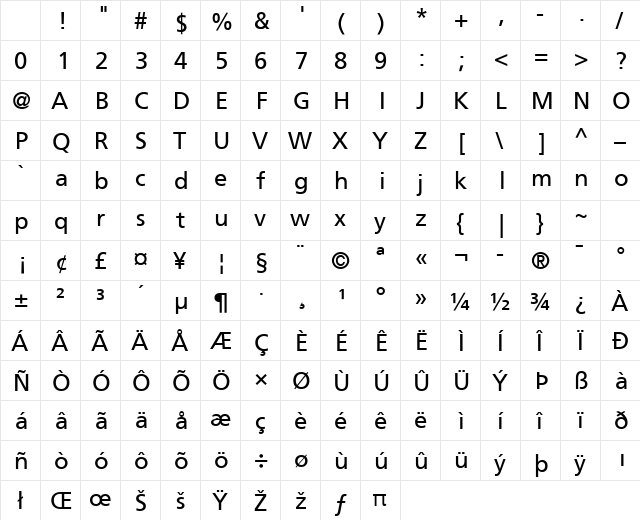
Frutiger LT Arabic 55 Roman
Style: 55 Roman
Foundry: Adobe / Linotype GmbH
Designer: Nadine Chahine and Adrian Frutiger
Frutiger LT Arabic Family
Design Context for Frutiger LT Arabic
Frutiger LT Arabic is a composed and adaptable typeface that performs quietly and consistently across a wide range of design contexts. Its slender proportions lend an understated elegance to any composition.